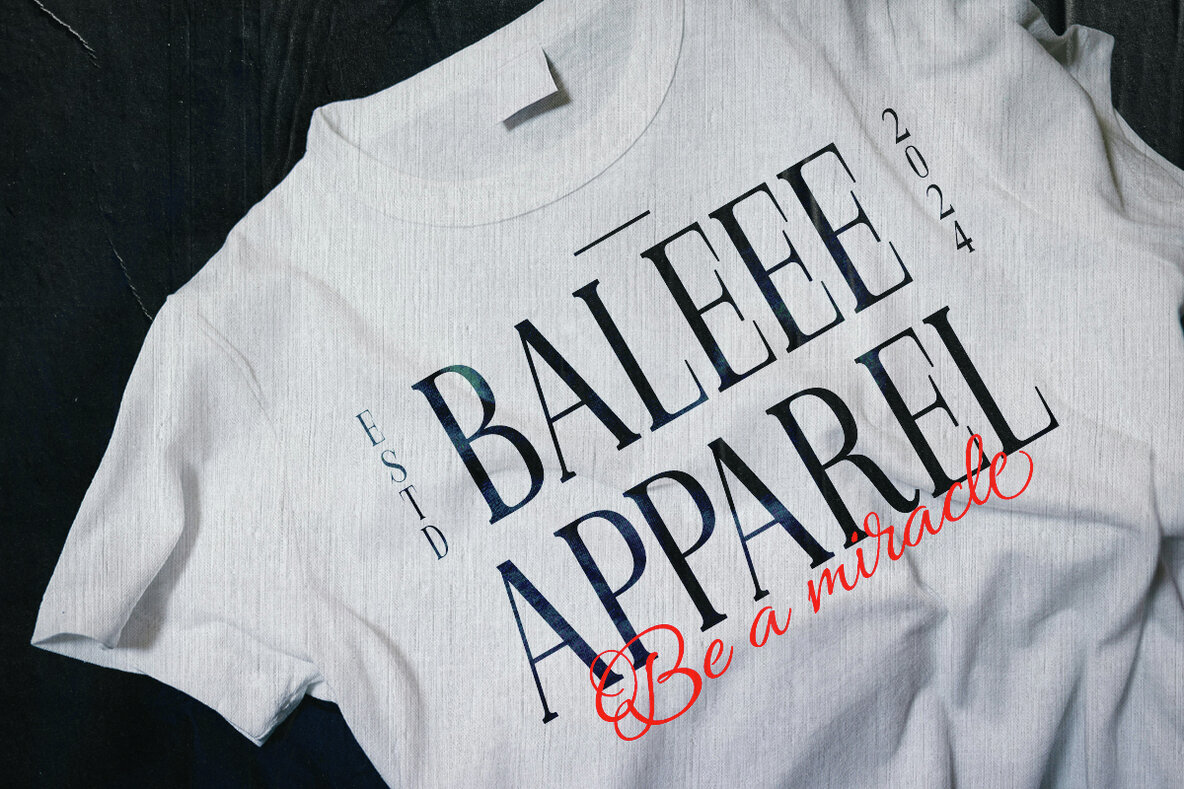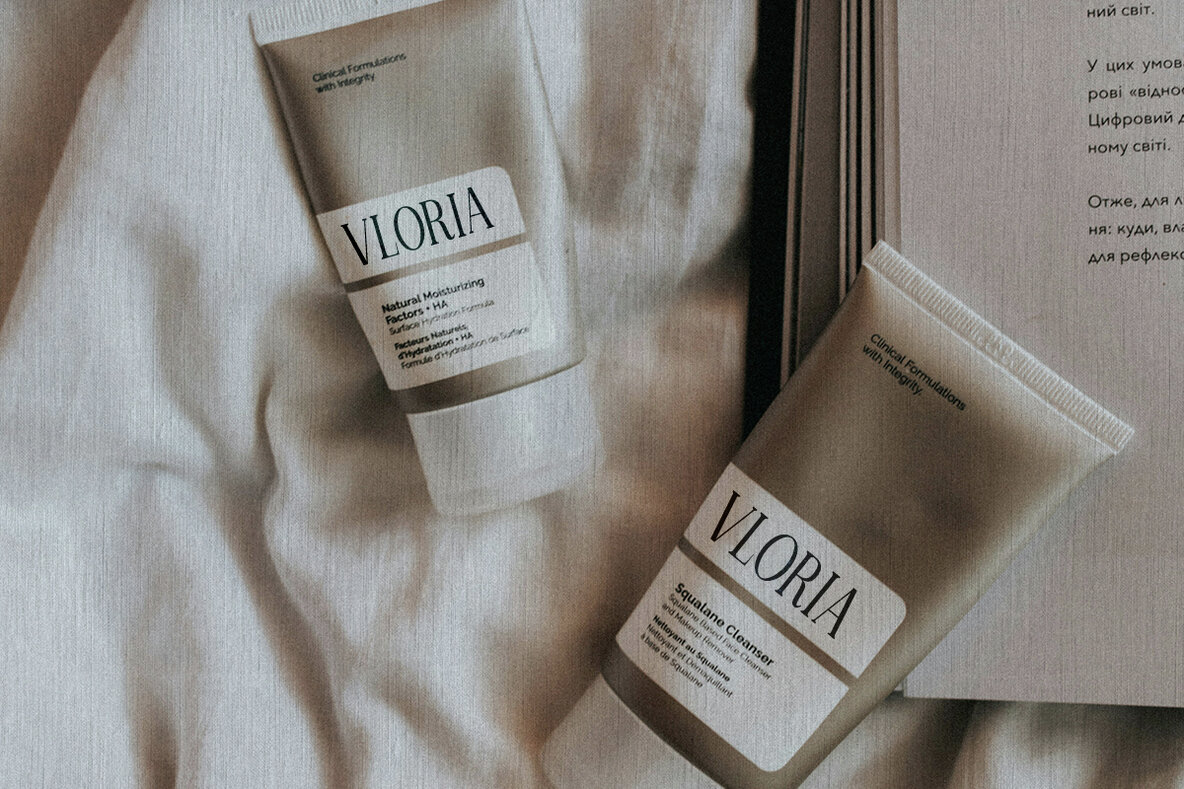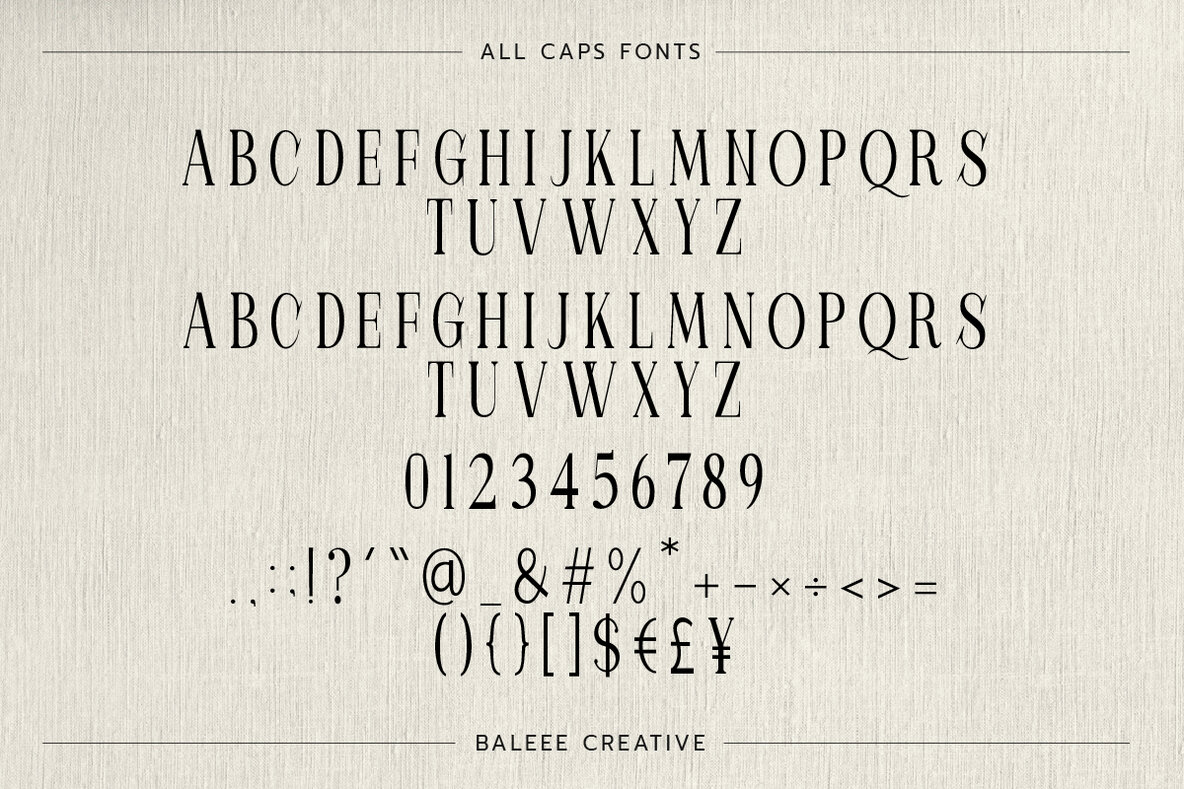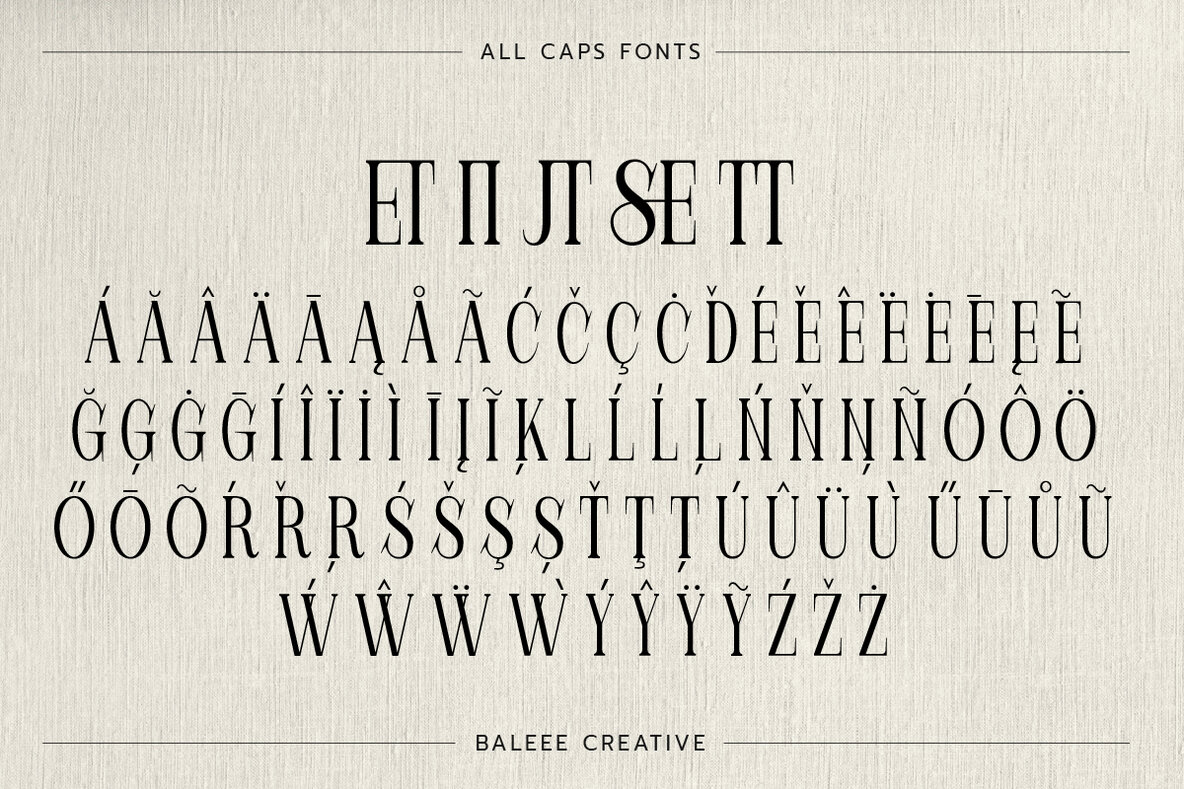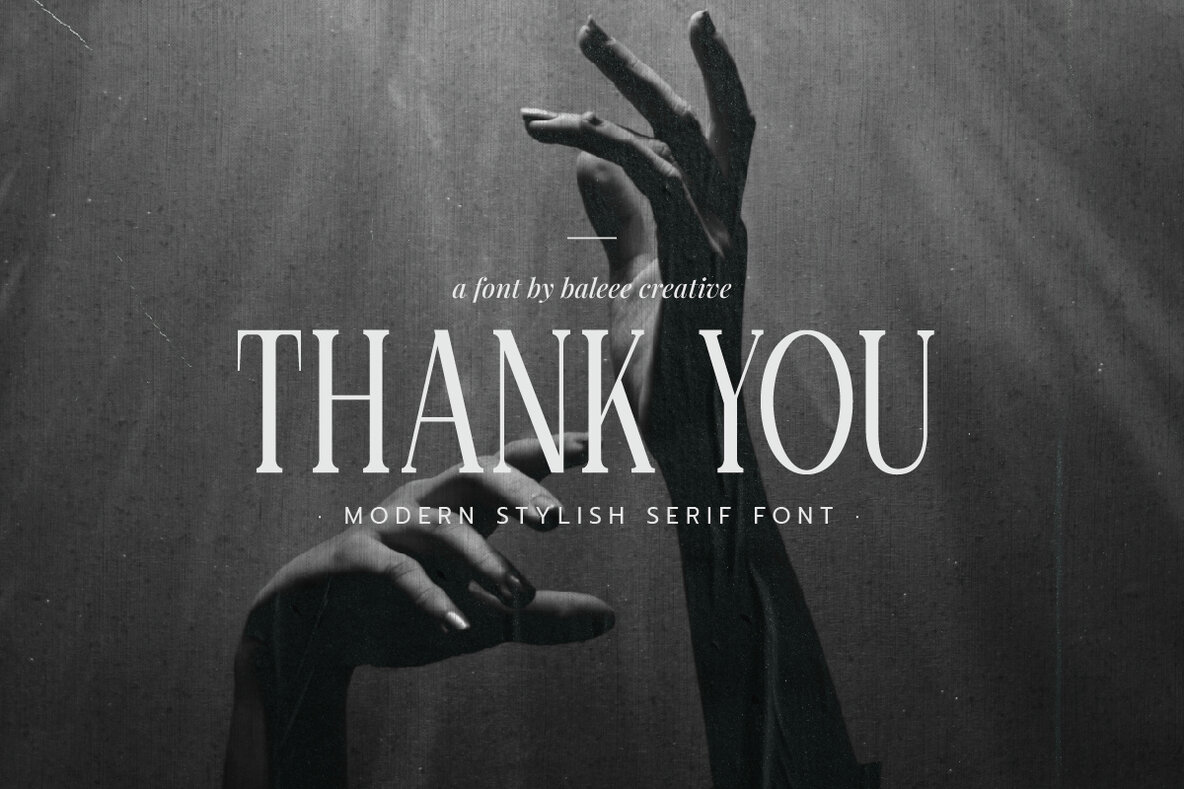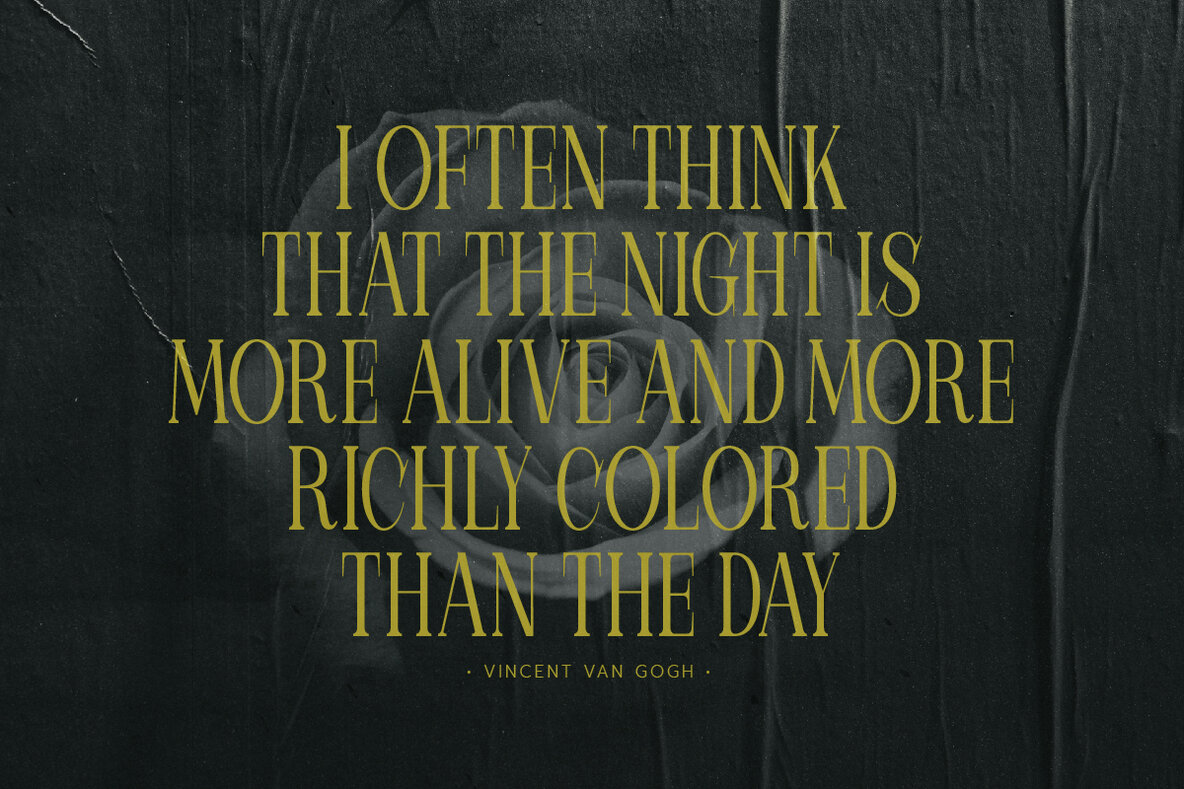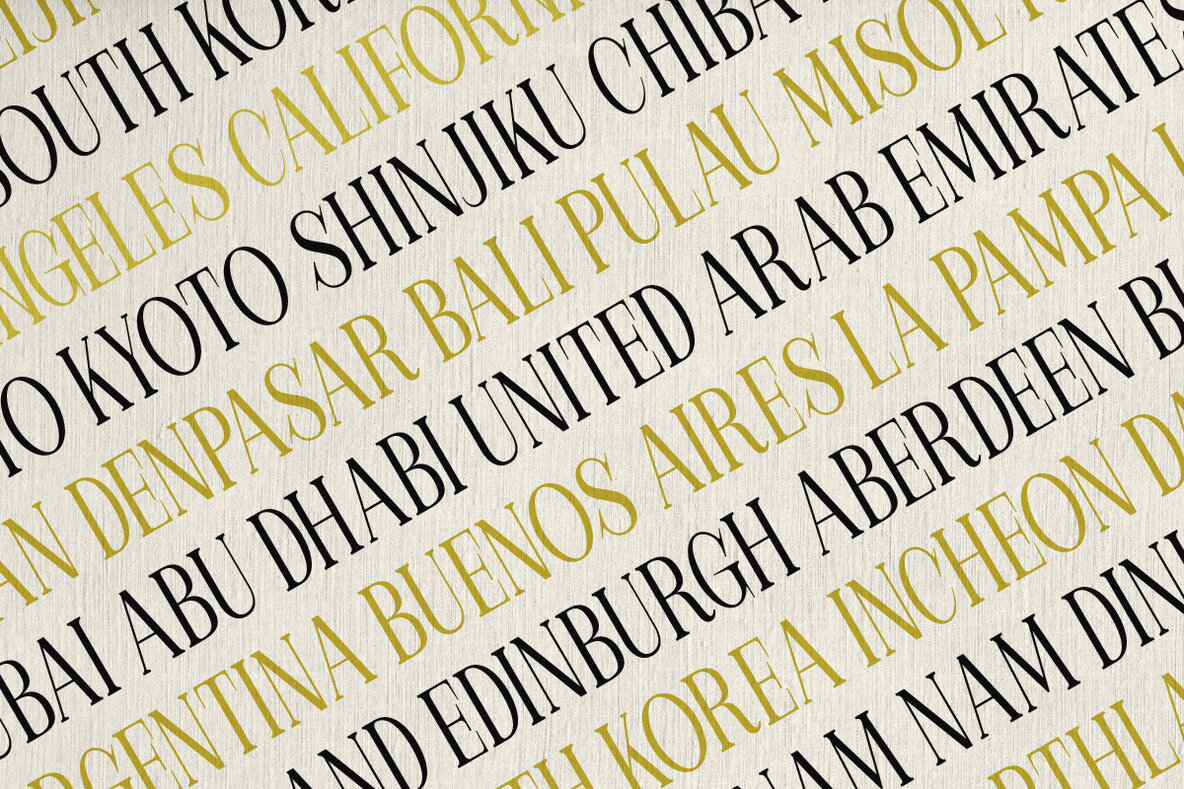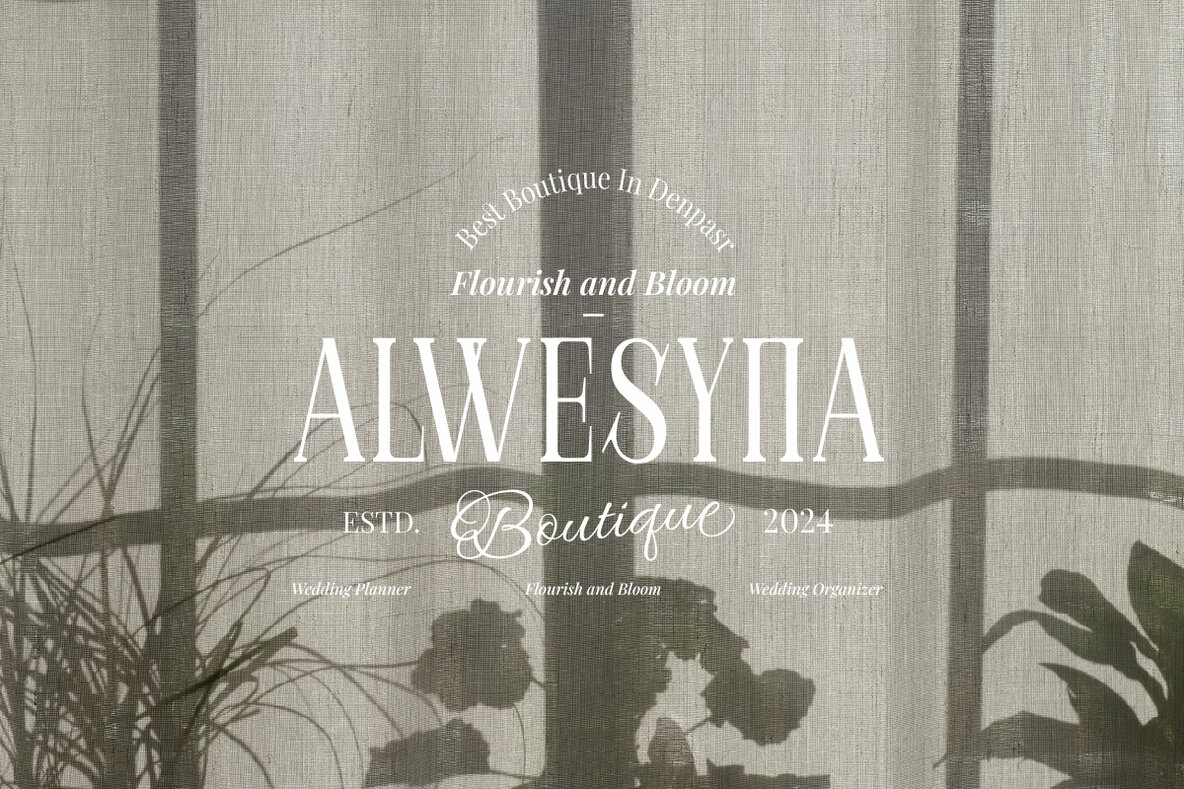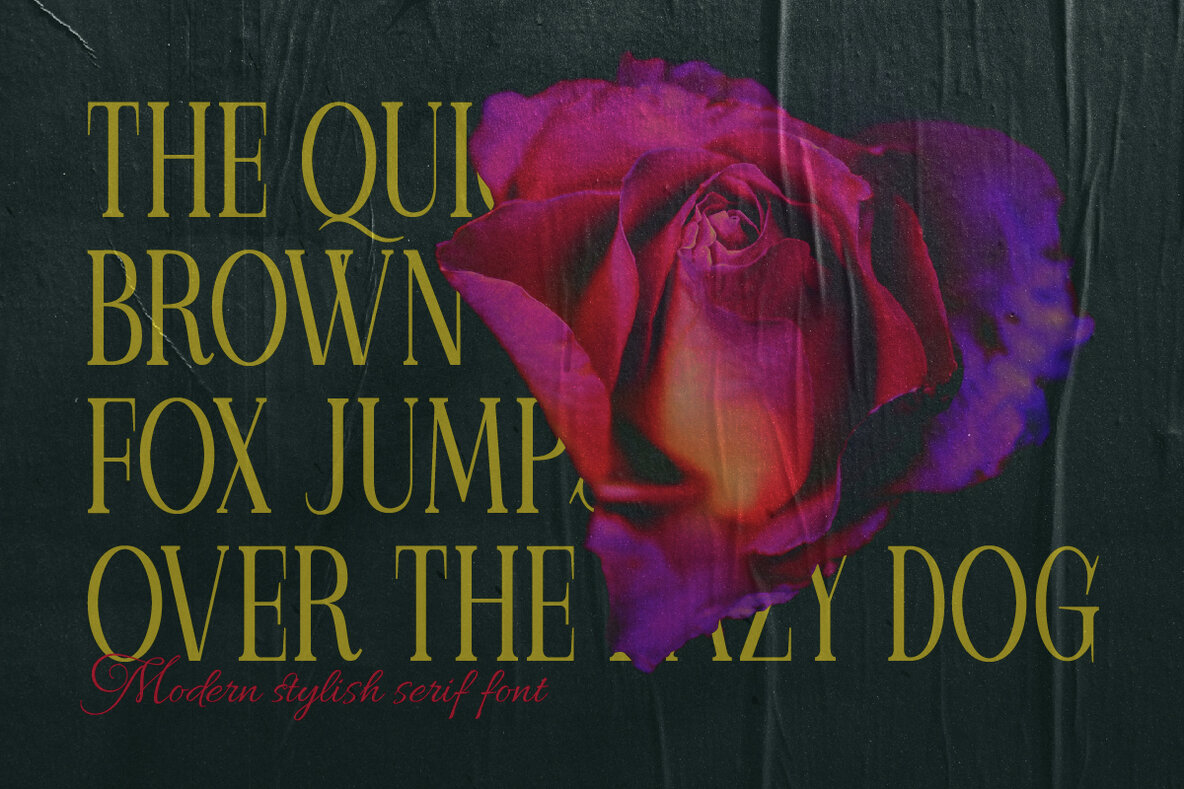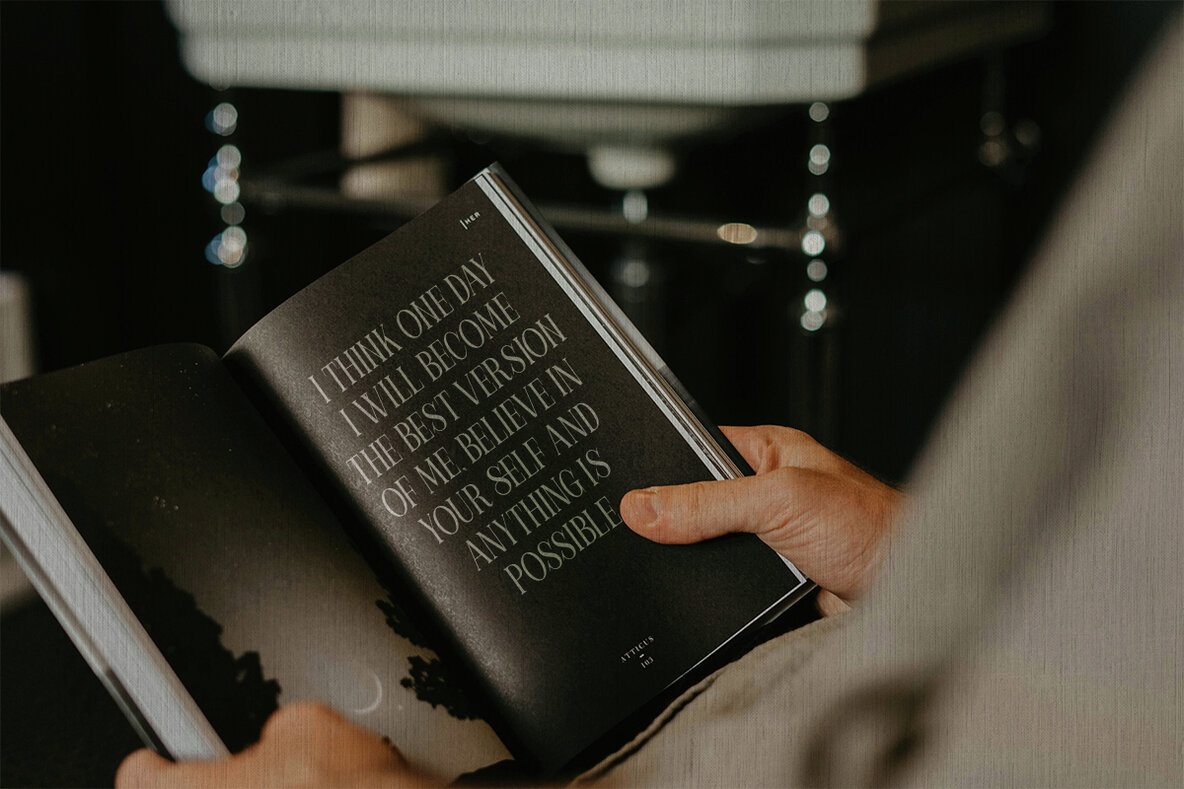
Naraswari Font
Naraswari Regular
Naraswari by Baleee is a unique vintage serif font that blends classic elegance with modern aesthetics. It features an all-caps design and comes with ligatures for added creativity. The font's distressed and authentic look gives a distinctive edge to each letter. Ensure you know how to access ligature letters in your design software. These alternate characters are embedded in the font file and can be accessed in design programs like Photoshop, Illustrator, and via the character map panel. If you need assistance, feel free to ask for guidance. Naraswari is perfect for a wide range of projects, including: You are allowed unlimited projects and sales with Naraswari font without requiring attribution. Ensure that you adhere to the following limitations:Naraswari Font: Vintage Serif with Modern Flair